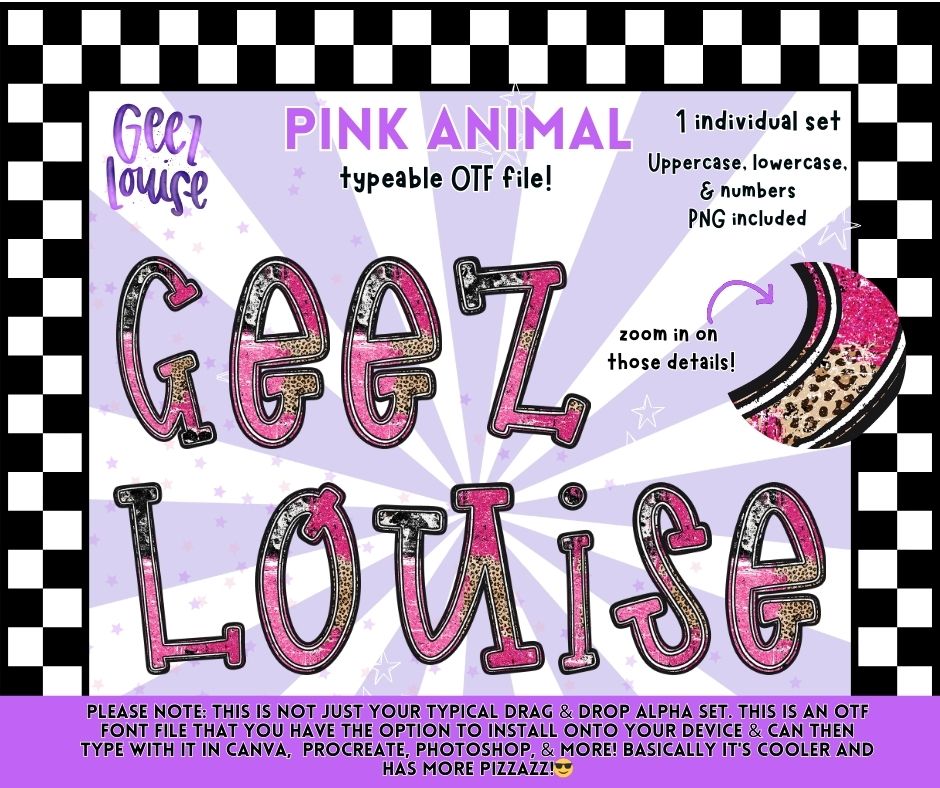
Pink Animal OTF Font & PNG Alpha Set | Typeable Alphabet | Uppercase Lowercase Numbers | Digital Download
Pink Animal Alpha Set
Add bold pink animal print style lettering to your designs with this typeable OTF alpha set.